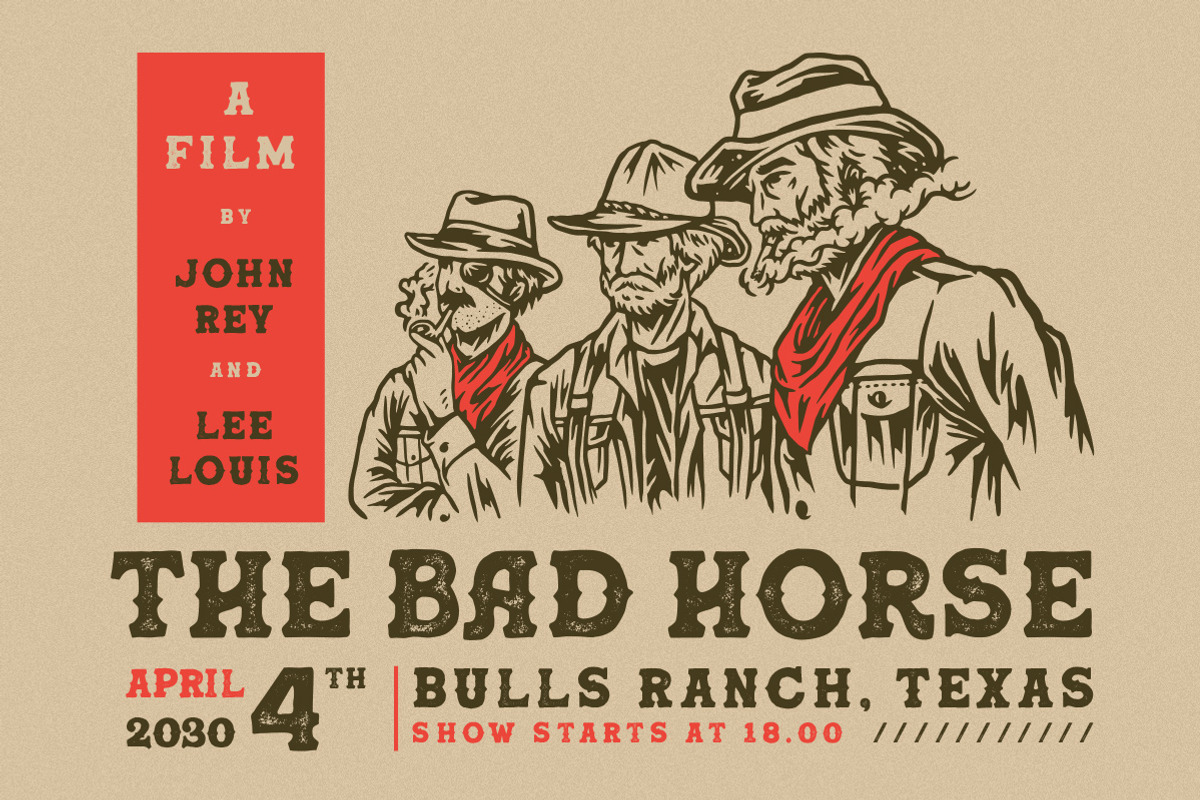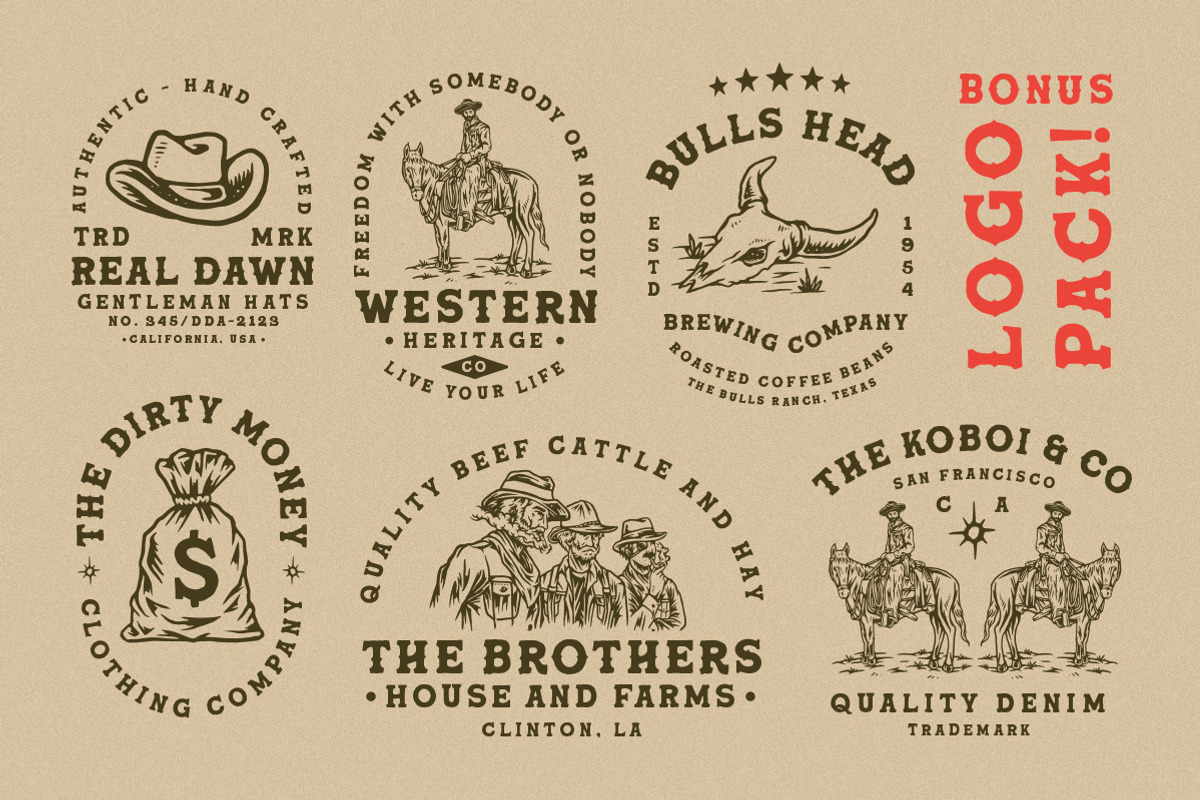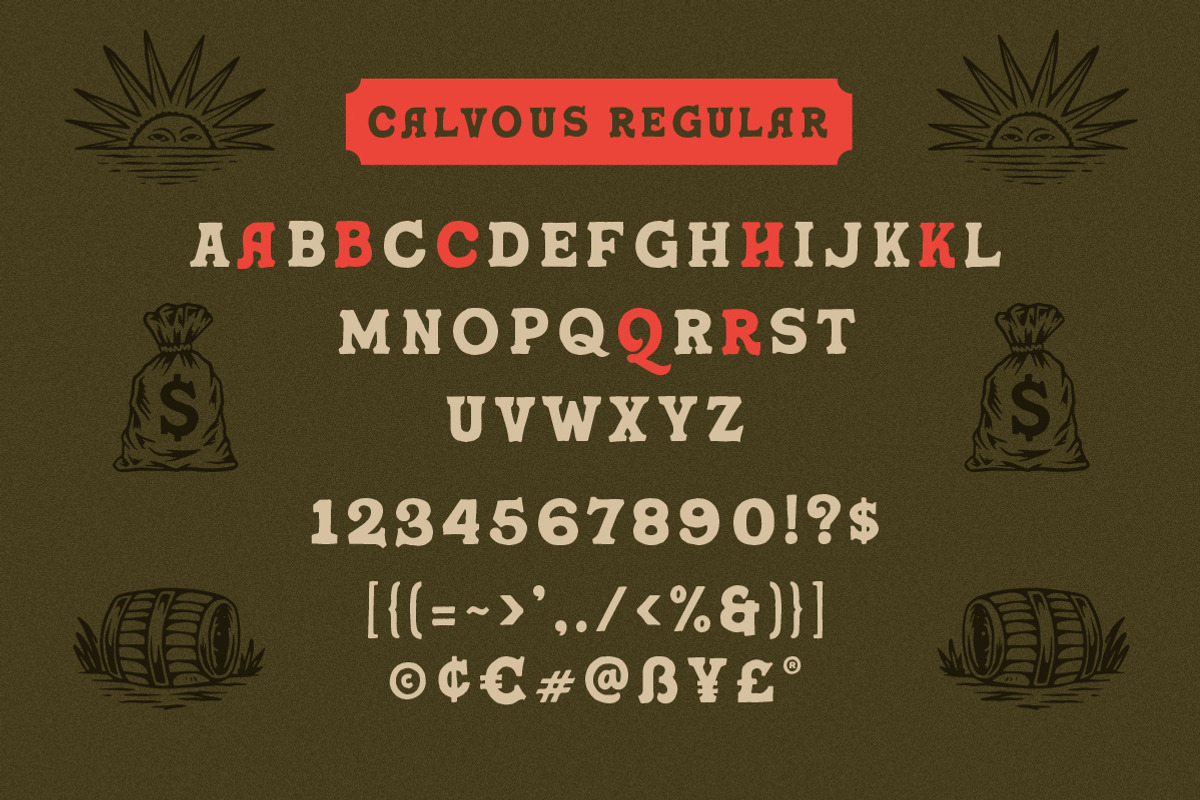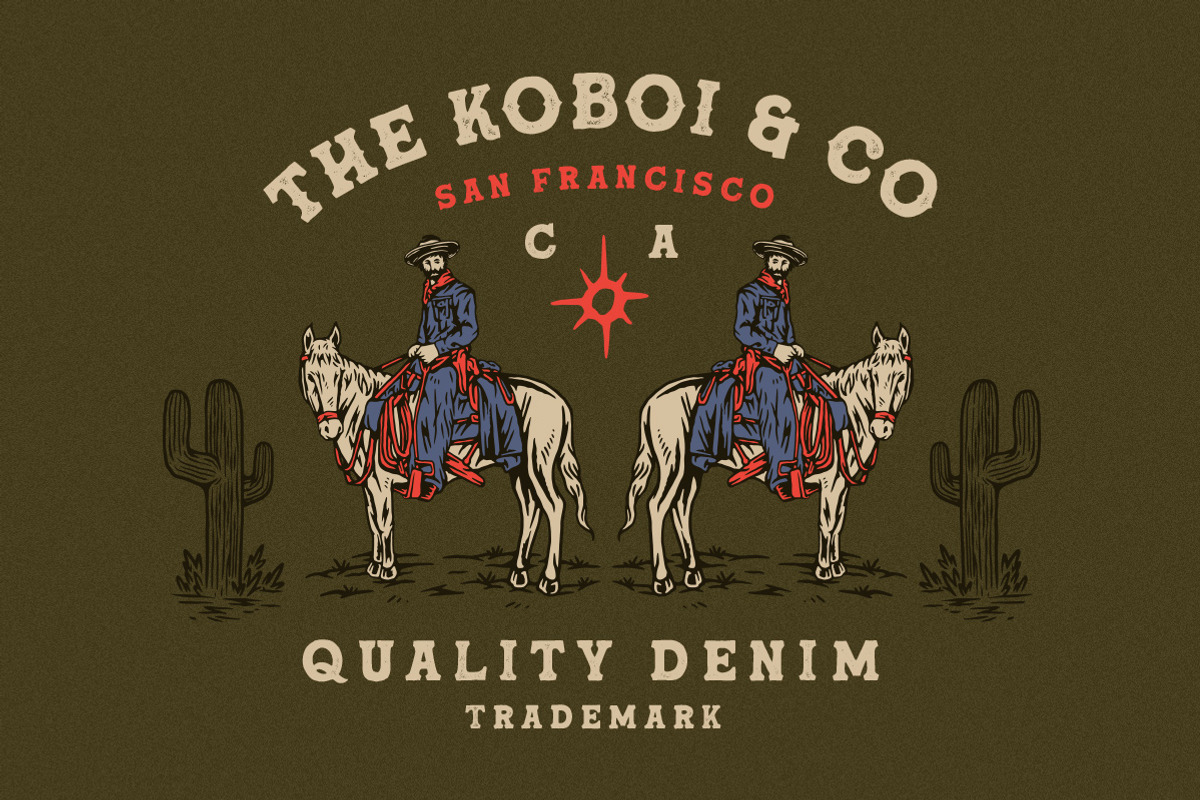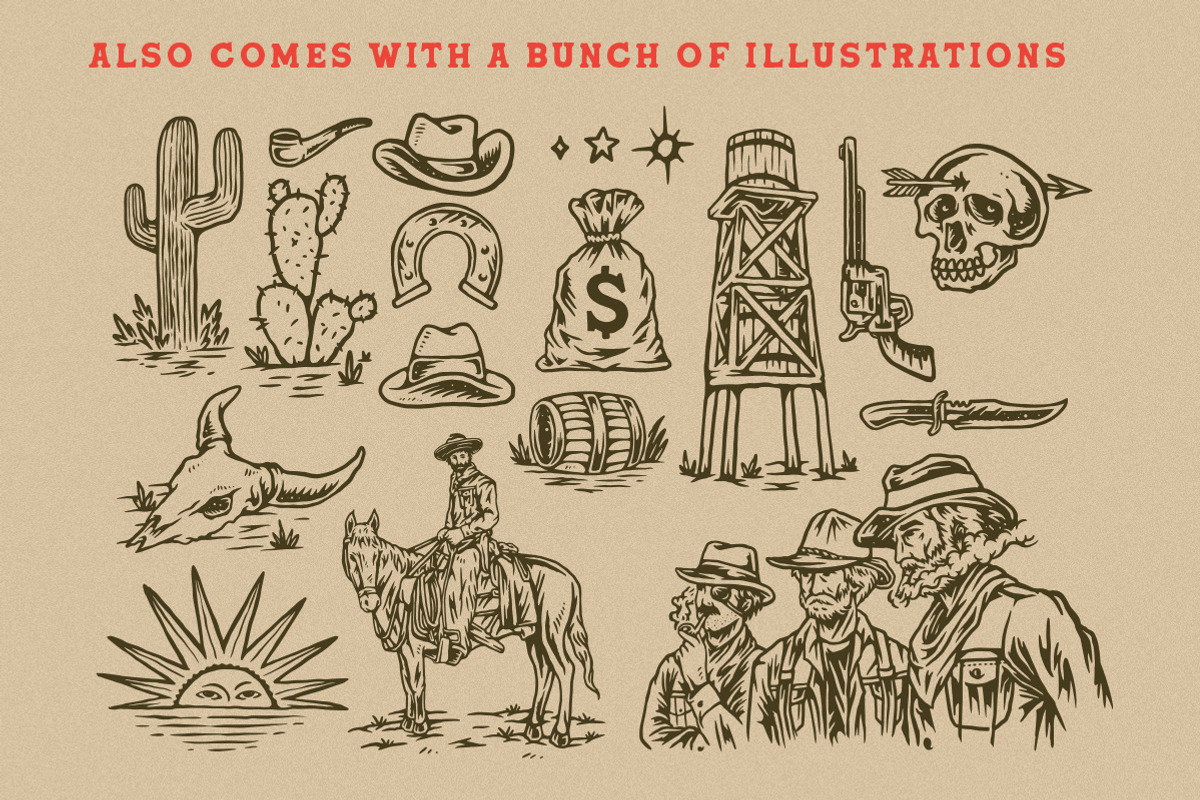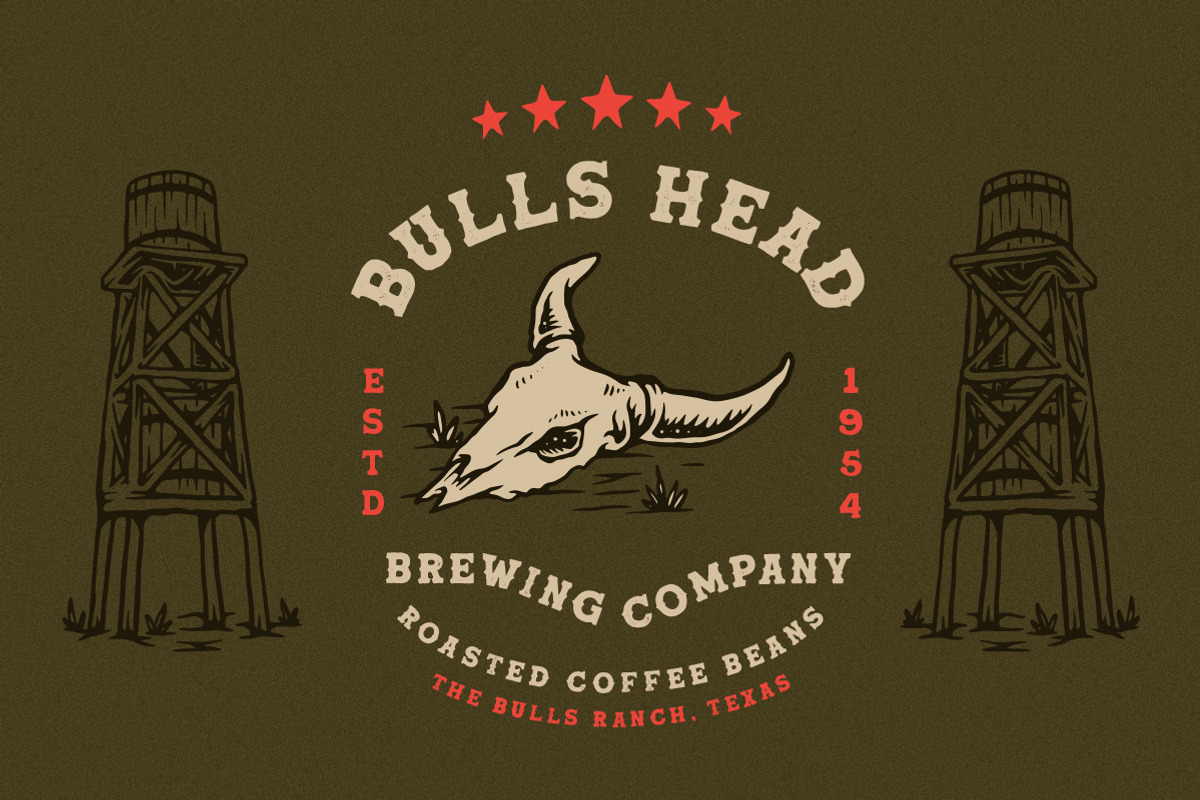
Calvous - Slab Serif Typeface
Introducing, Calvous - A Slab Serif Typeface. This item consist of 4 fonts in various styles which you can play around with it. Suitable for design needs with a touch of classic western. You will also get 17 hand drawing illustration pack and 6 logo template pack in this item! In this product you will get :
- Calvous Regular
- Calvous Spurs
- Calvous Spurs Stamp
- Calvous Stamp